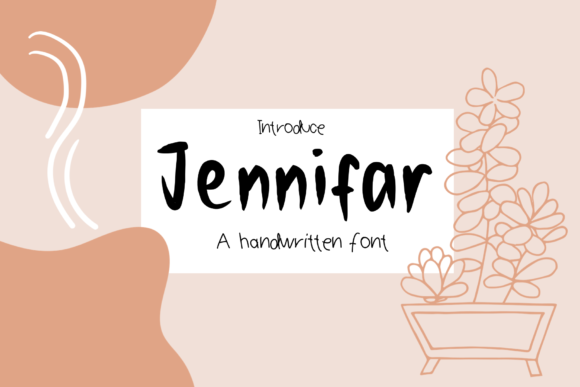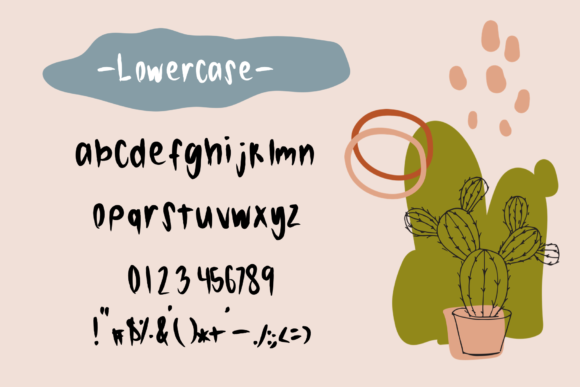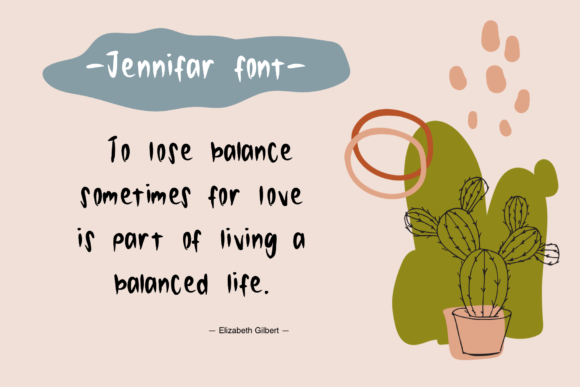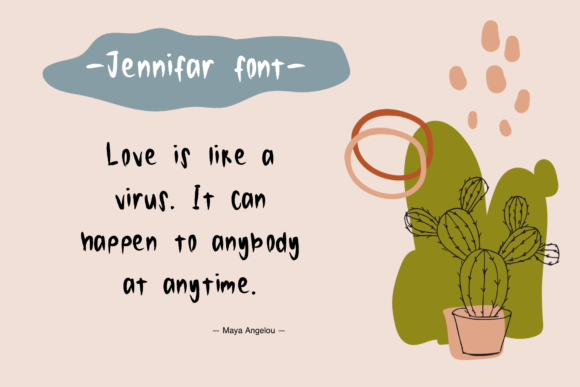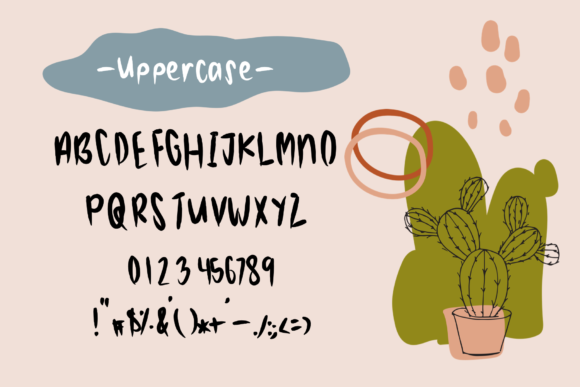
About Jennifar Font
Jennifar is a sweet and friendly handwritten font. Its natural and unique style makes it incredibly fitting to a large pool of designs. The only limit is your imagination!